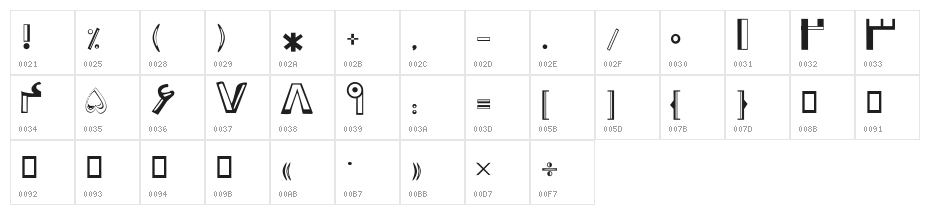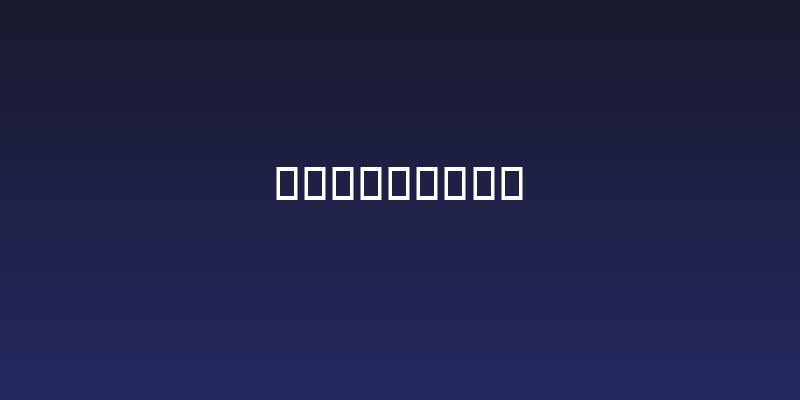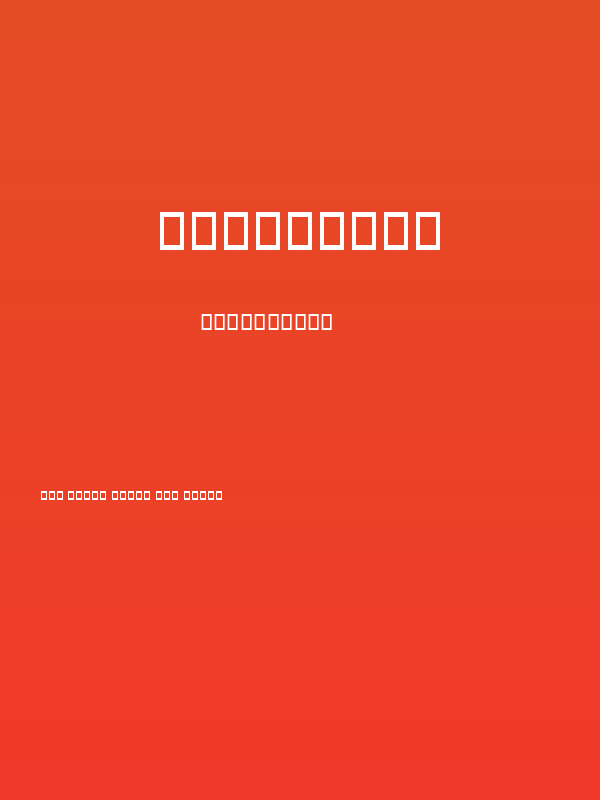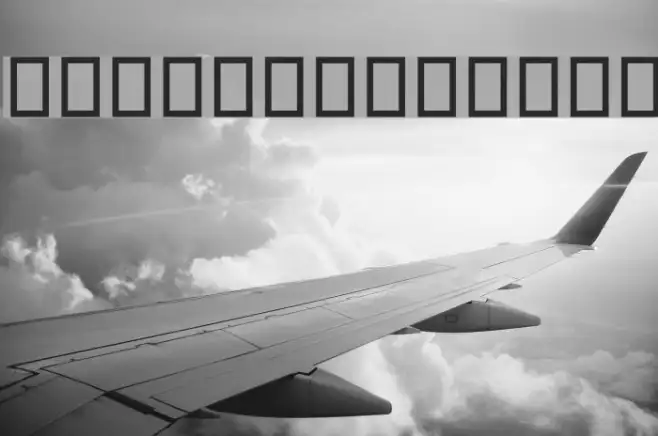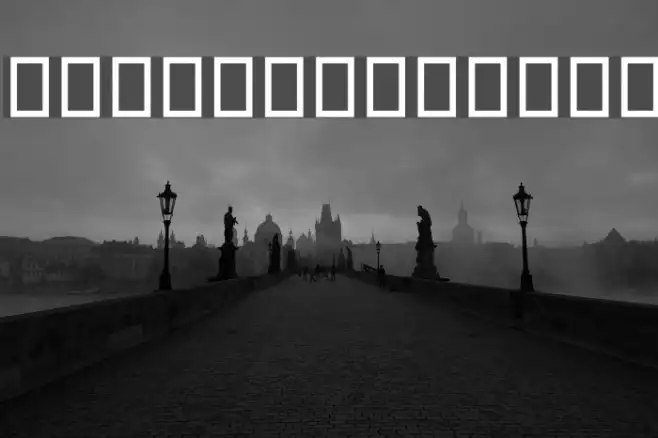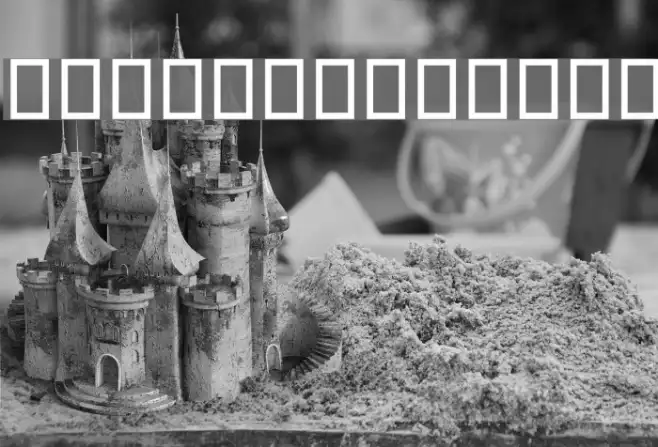
Dabestaan Font
Dabestaan Description
This font is a highly decorative and playful typeface, characterized by its bold and exaggerated geometric shapes. Each letterform is uniquely stylized, incorporating elements like hearts and spades, which add a whimsical touch. The characters are wide and have a strong presence, making them ideal for attention-grabbing designs. The font includes a variety of special characters that maintain the same playful aesthetic, ensuring consistency across different uses. Its distinctive style makes it suitable for creative projects where a fun and bold statement is desired.
| Proposed Projects | Ideal for posters, event invitations, children's book covers, and playful branding projects. |